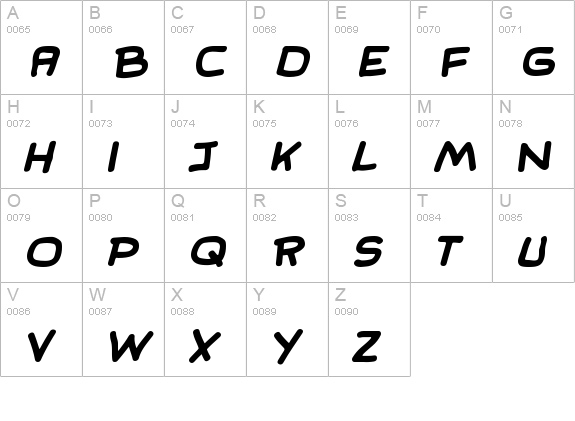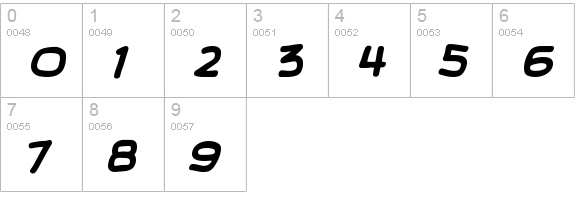
SundayComics BB Bold Font Details
SundayComics BB Bold is a strong, high-contrast variant in the SundayComics typeface family \xE2\x80\x94 well suited to headlines, attention-grabbing titles, and strong calls-to-action.
SundayComics BB Bold font is a delightful and playful typeface that brings a touch of whimsy to your design projects. With its bold and dynamic characters, this font is perfect for creating eye-catching headlines, posters, and comic strips. The rounded edges and thick strokes give it a friendly and inviting appearance, making it ideal for adding a fun and lighthearted vibe to your designs. Best of all, SundayComics BB Bold font is available for free download at FontsMarket.com. This means you can easily access this charming font and use it in your personal and commercial projects without any cost. Don't miss out on adding a touch of comic flair to your designs with SundayComics BB Bold font! Download it today and let your creativity shine.